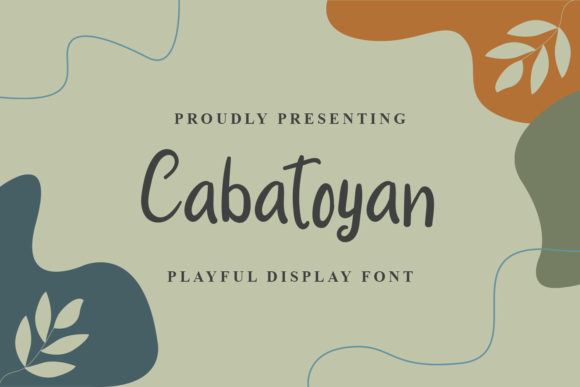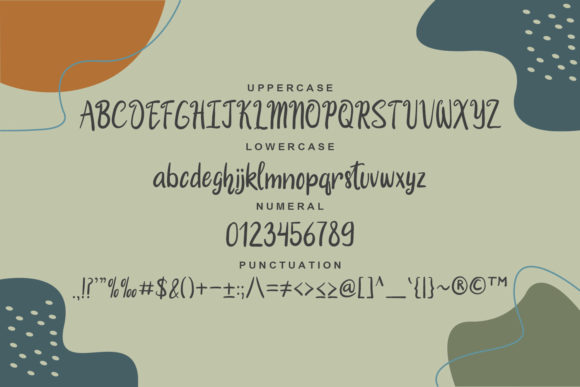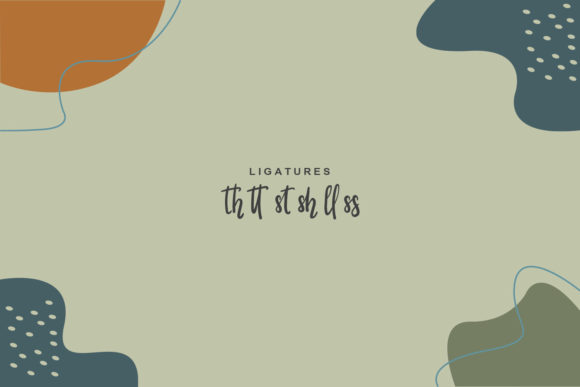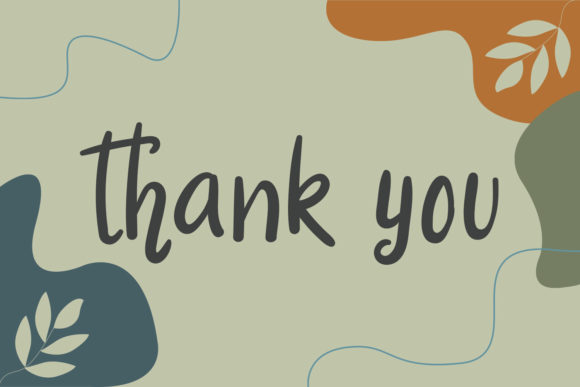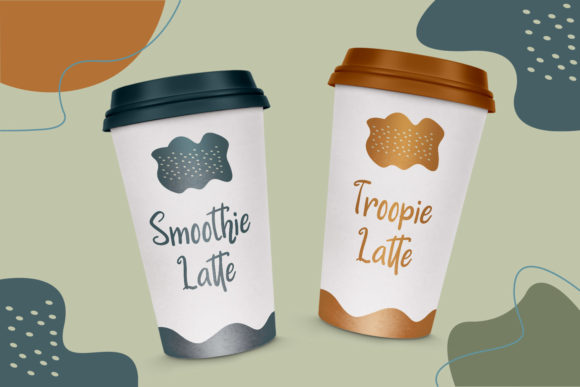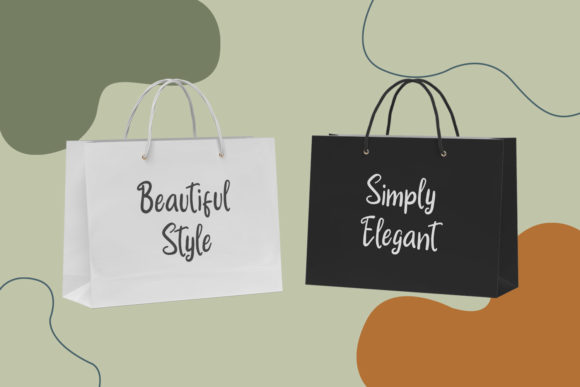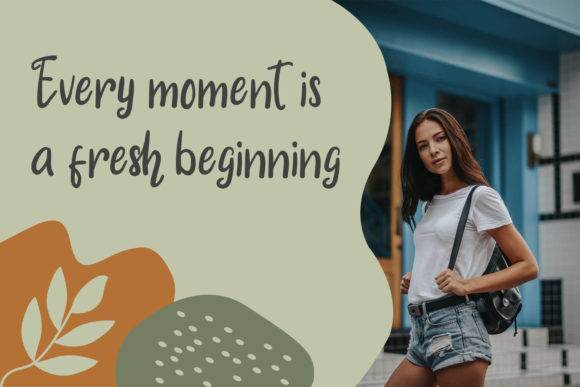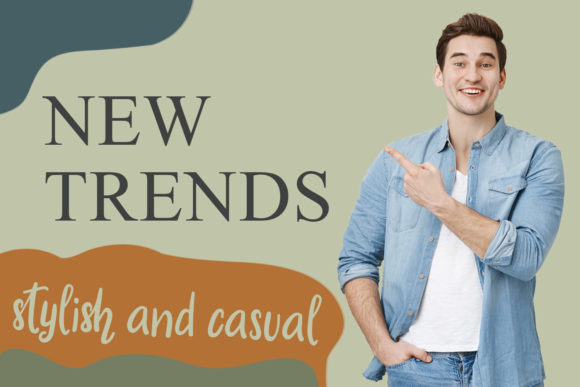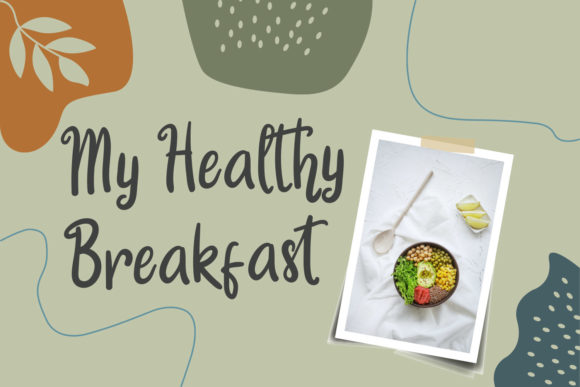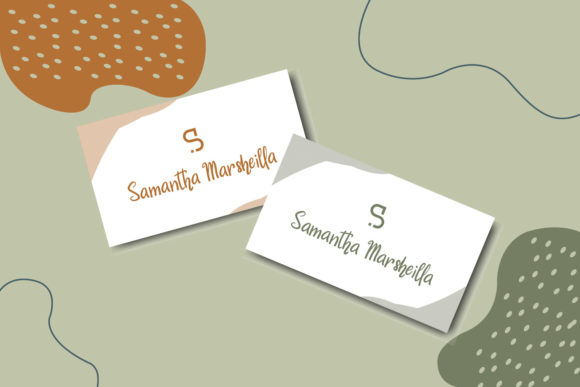
Cabatoyan Font
About Cabatoyan Font
Cabatoyan is a playful and simple handwritten font. No matter the topic, this font will be an incredibly asset to your fonts’ library, as it has the potential to elevate any creation.